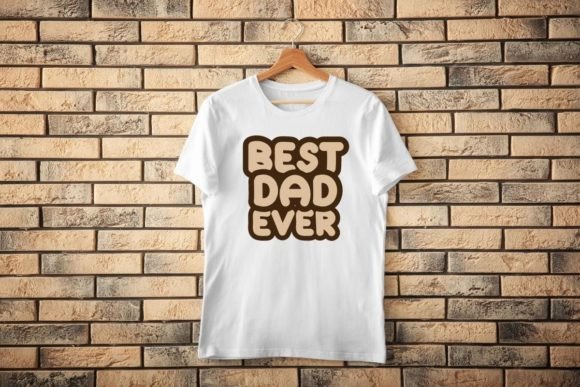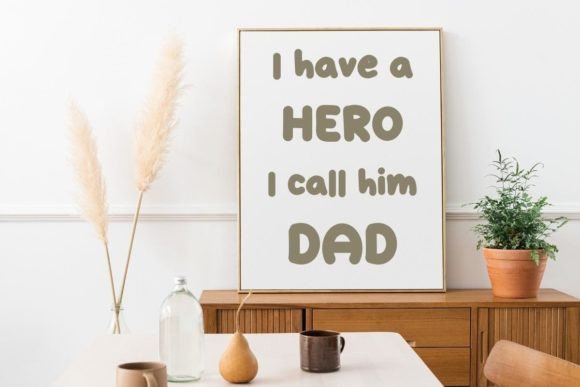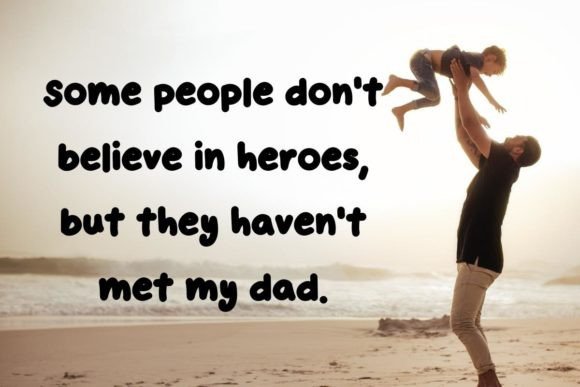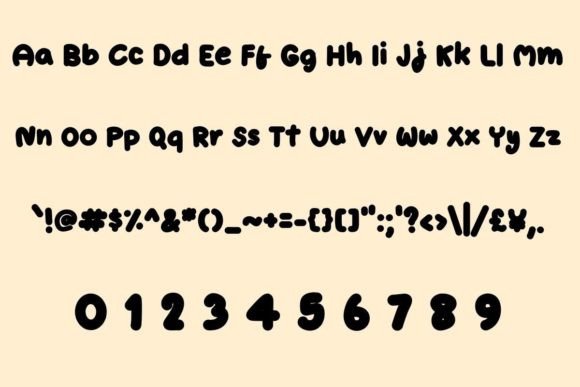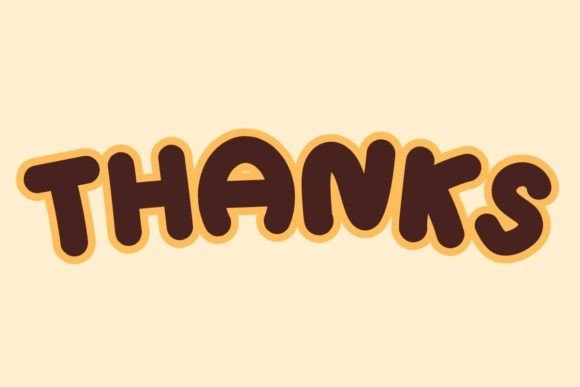
Introduction to Hero Font
Hero is a bold hand-drawn display font.
Cute and thick, these characters are perfect for creating posters, banners, advertising materials, covers, and many more Get this lovely font and use it to bring your creative ideas to life.